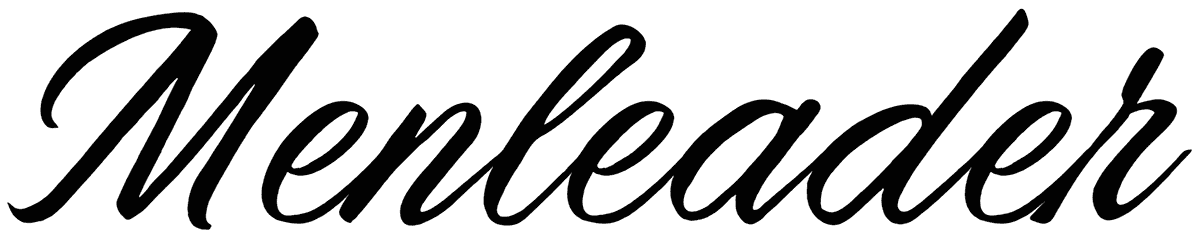
Menleader Font
From another point of view, a lovely script font such as Menleader can increase the level of engagement of your artwork by sharing a feeling of mystery, playfulness, or viability with the audience. Due to its angular and crooked characters, this calligraphy font might look perfect on posters, book covers, and magazines.